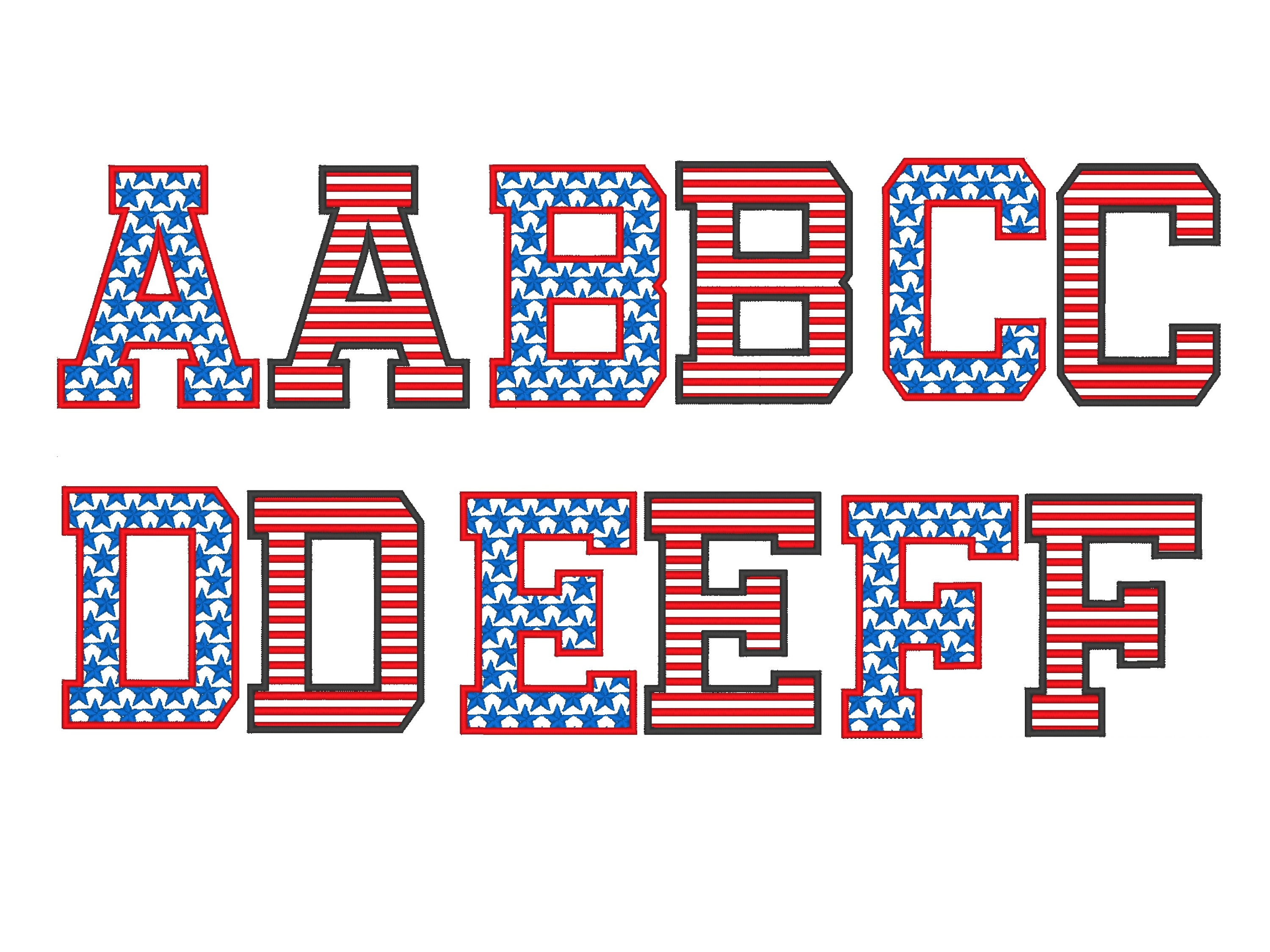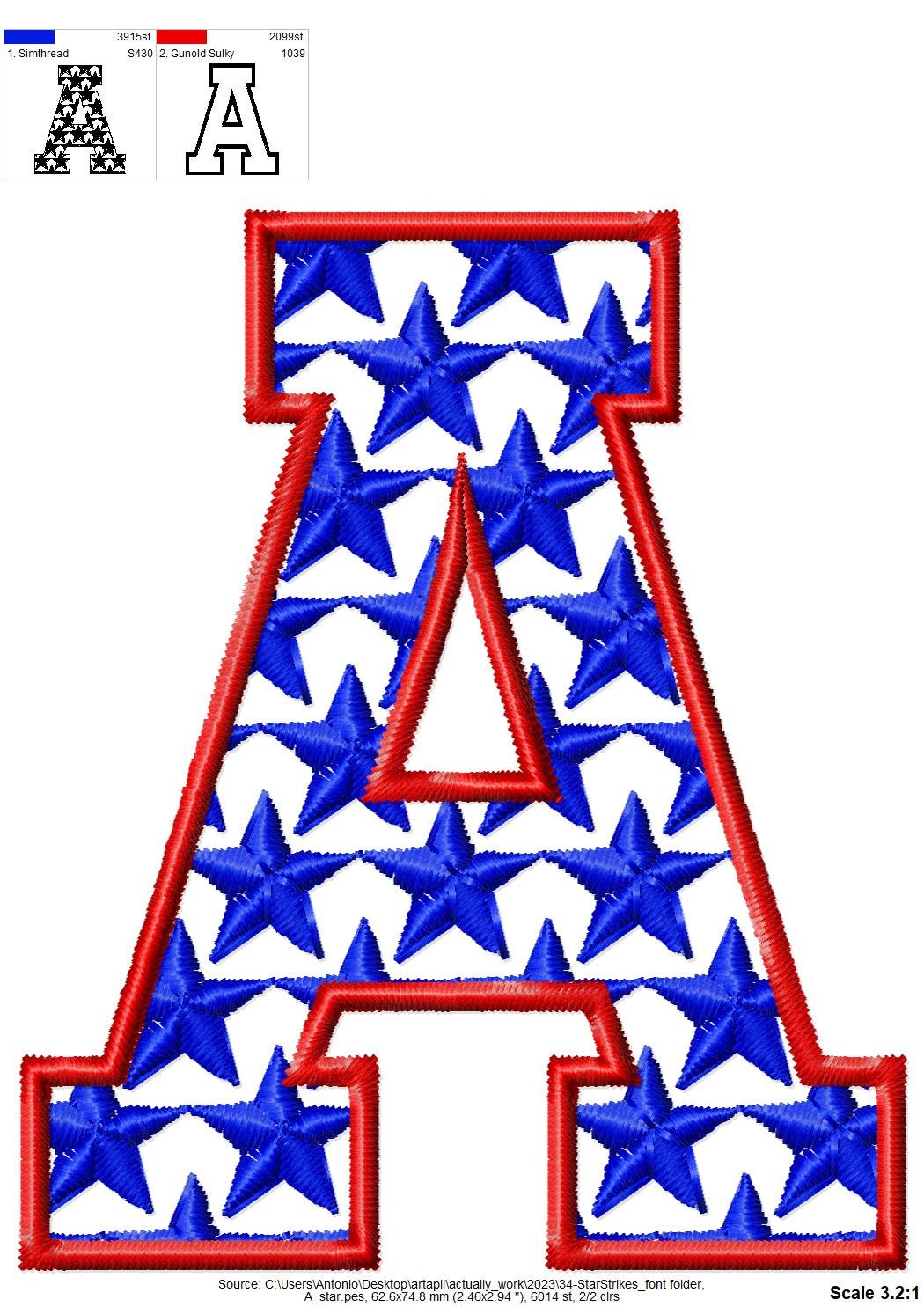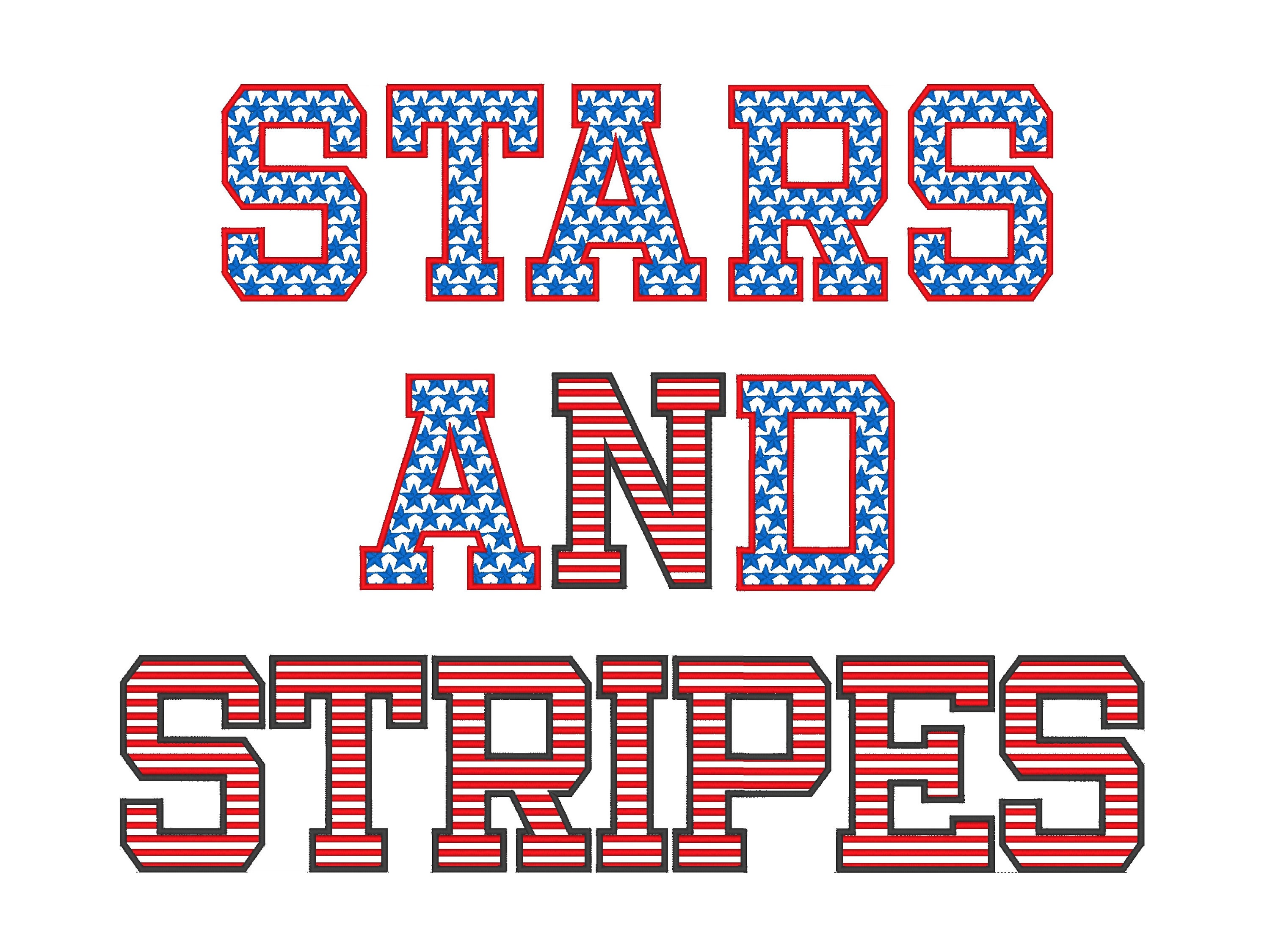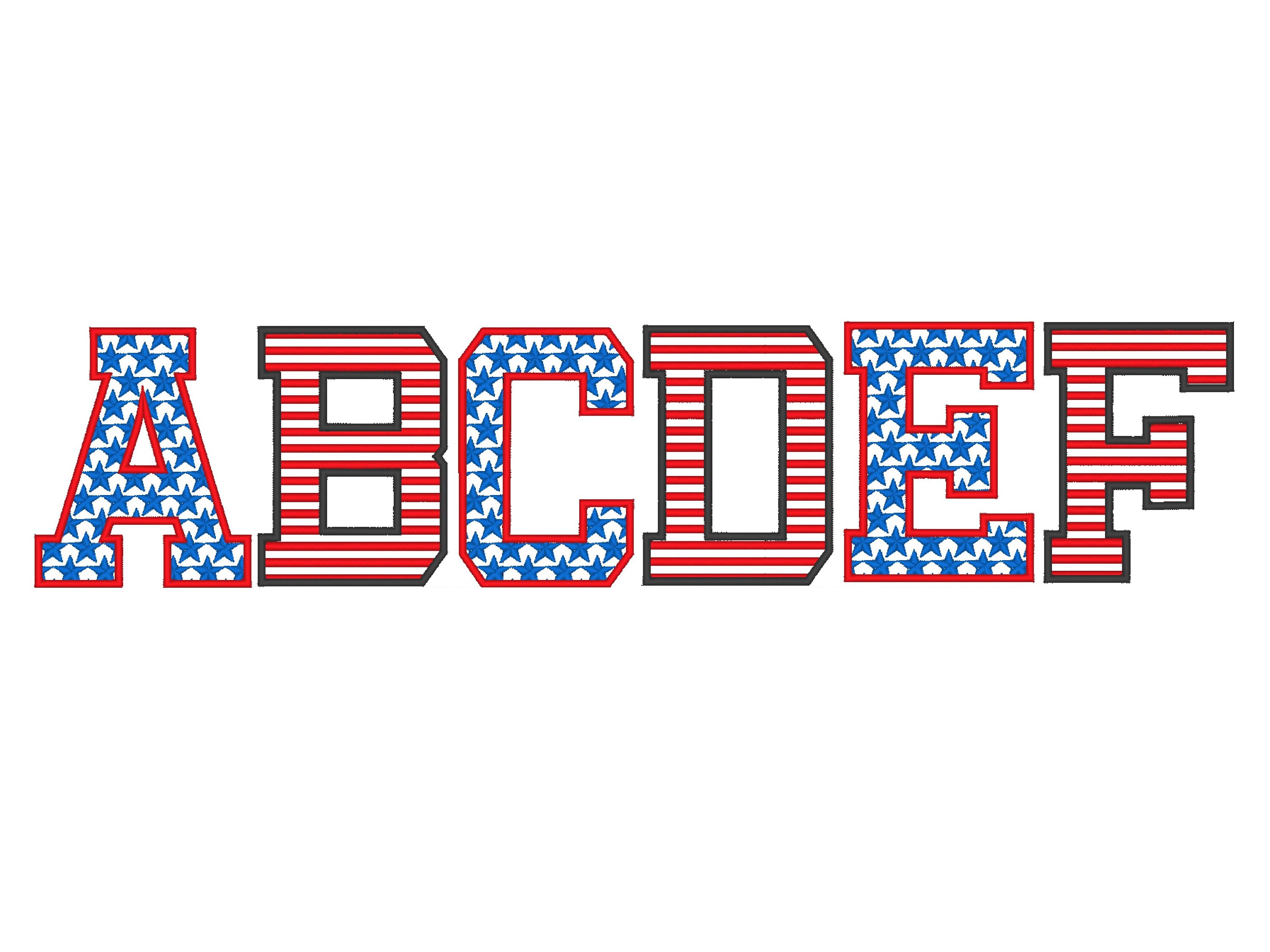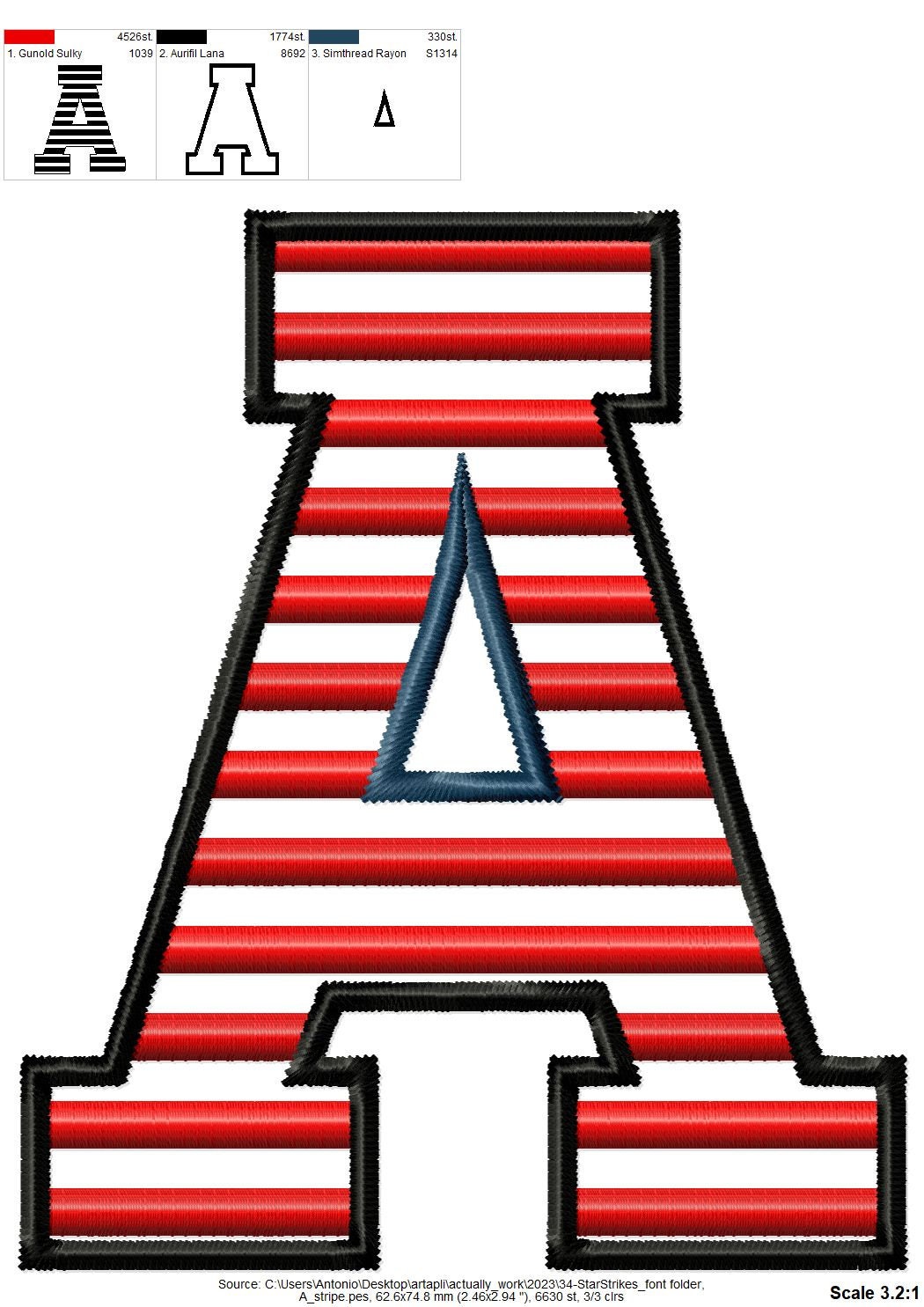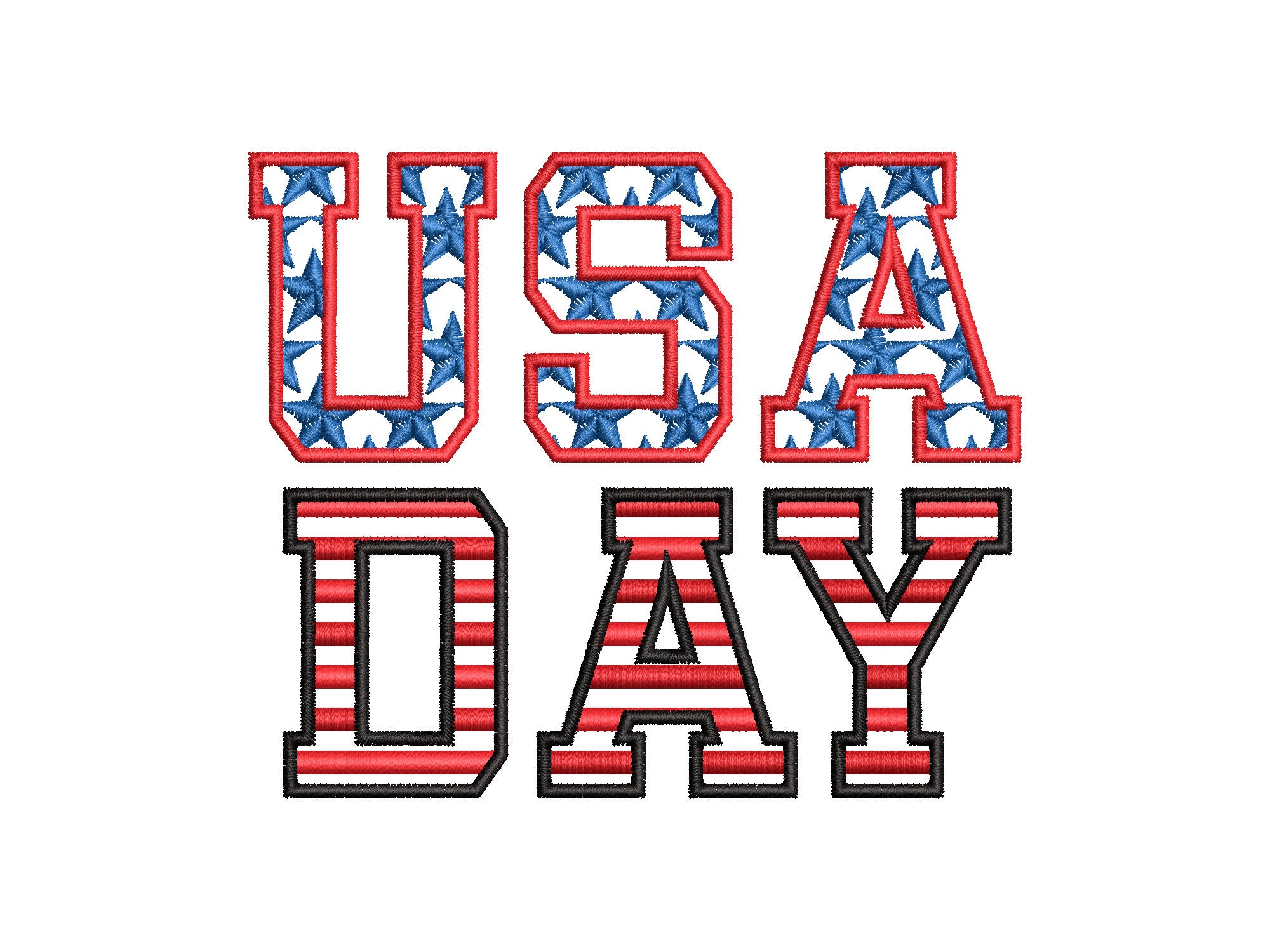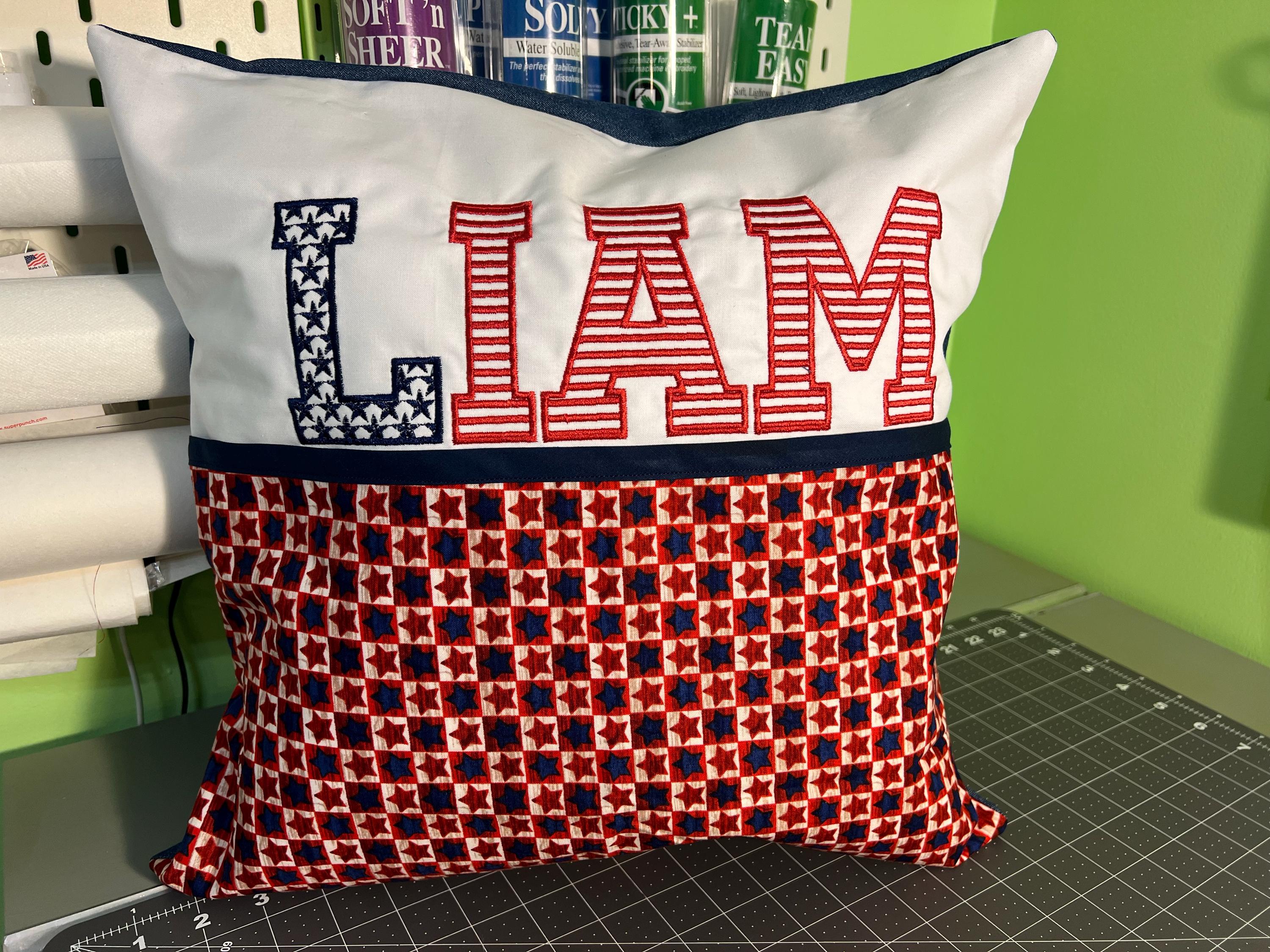
Patriotic Stars and Stripes Block Font 2 types machine embroidery designs SET of 2 alphabet letters monogram 4th July Independence Day font
Included 2 fonts in matching sizes. Just combine and match as you like.
Uppercase and lowercase letters, and numbers.
The letters stitch nice and smooth. Great detail.